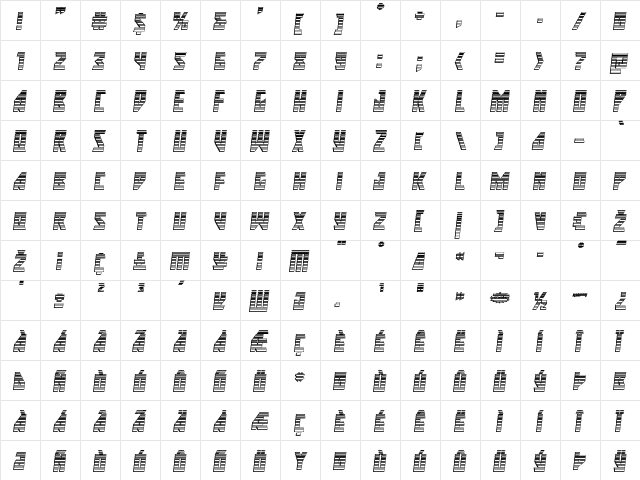
Major Force Chrome Italic Italic
Design Context for Major Force Chrome Italic Typeface
Major Force Chrome Italic has the bold swagger of sports branding: strong, assertive letterforms designed to dominate headlines and jerseys alike. The slanted form adds forward momentum and visual energy.
Built for sports team identities, athletic apparel, event posters, and high-energy promotional material.
Font Pairing: Use alongside a condensed or geometric sans for supporting copy — keep the pairing bold, functional, and free of ornament.
Pro Tip: Major Force Chrome Italic thrives on contrast — try it large, bold, and tight against a clean background for maximum visual impact.